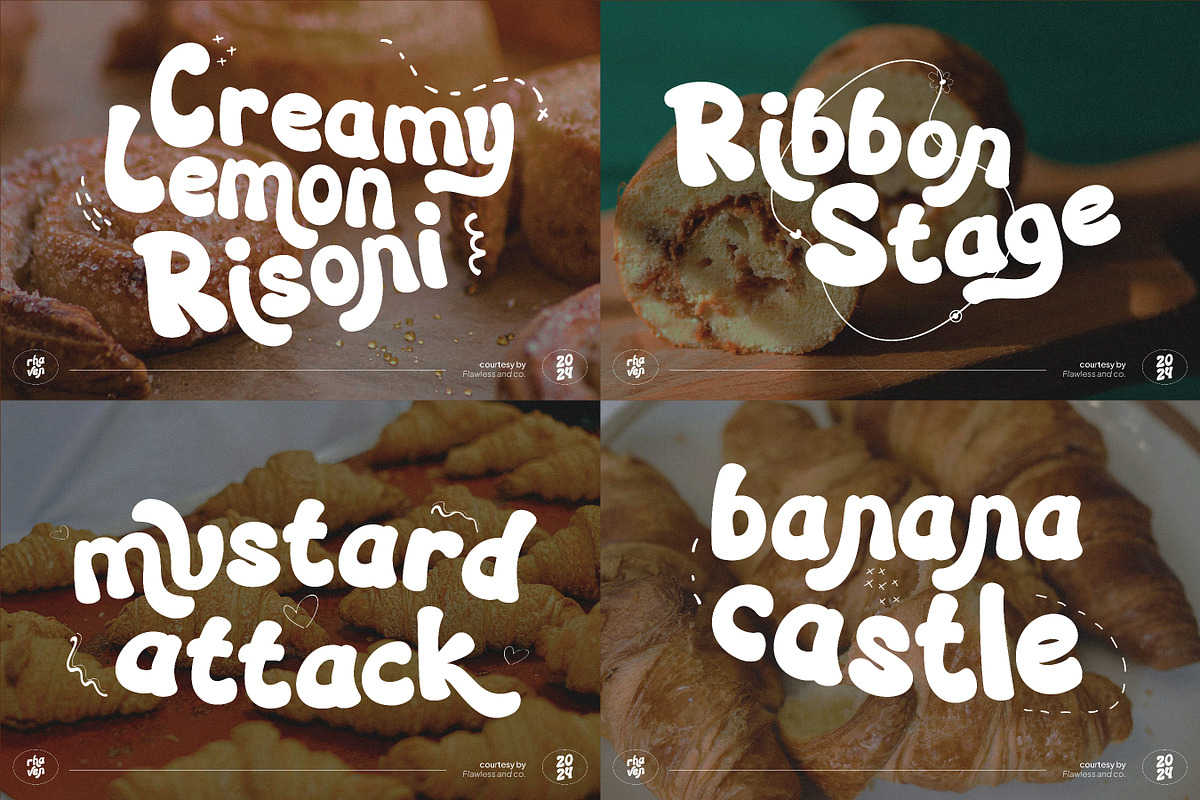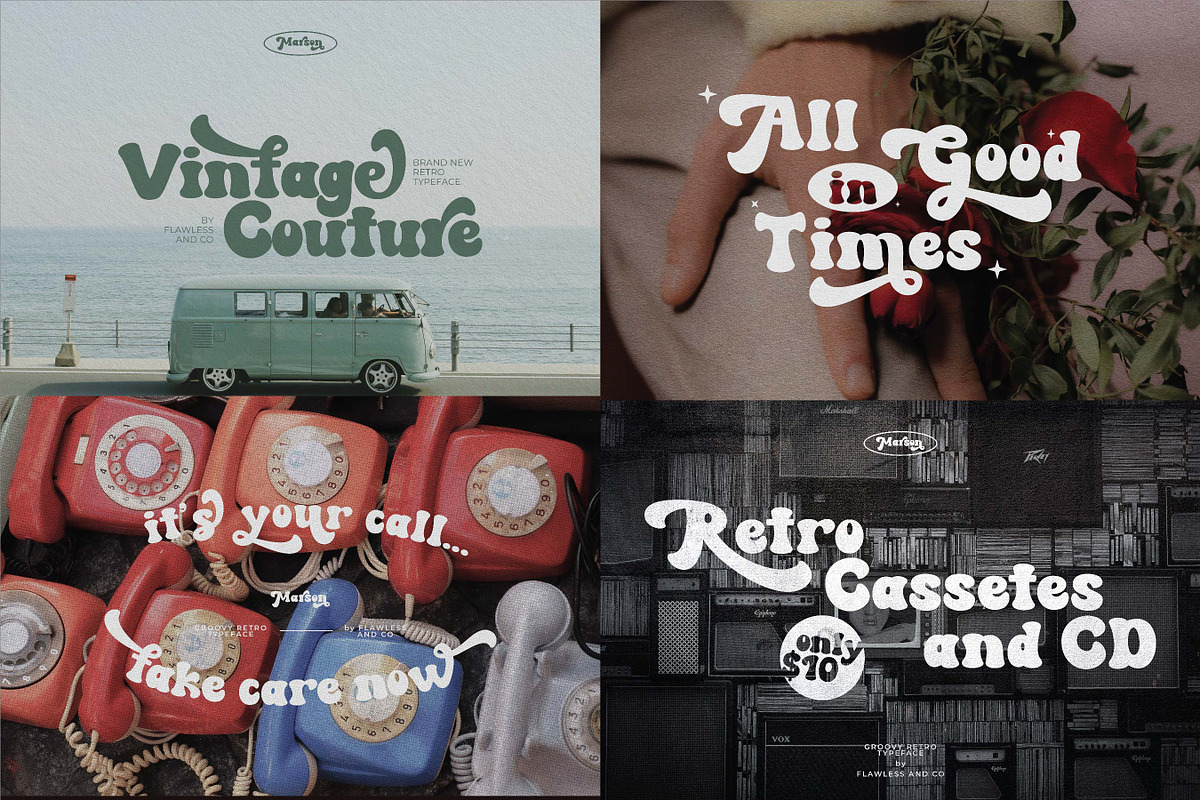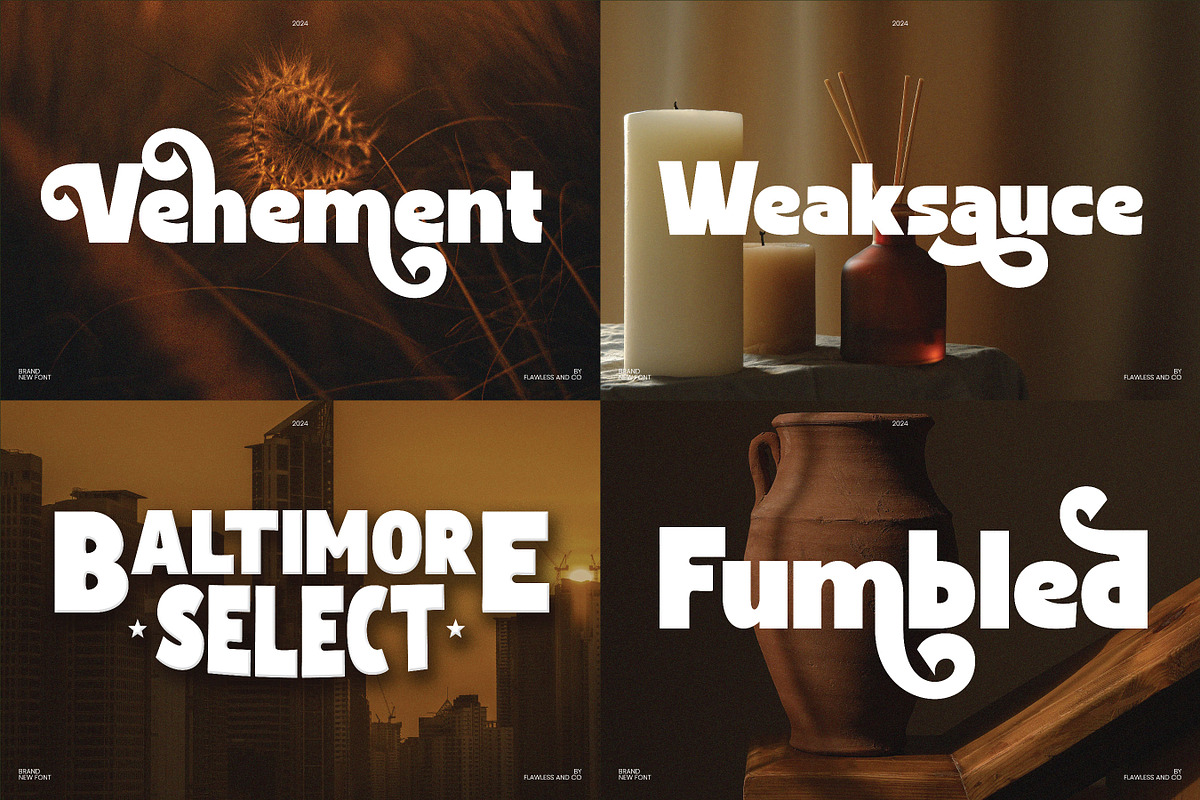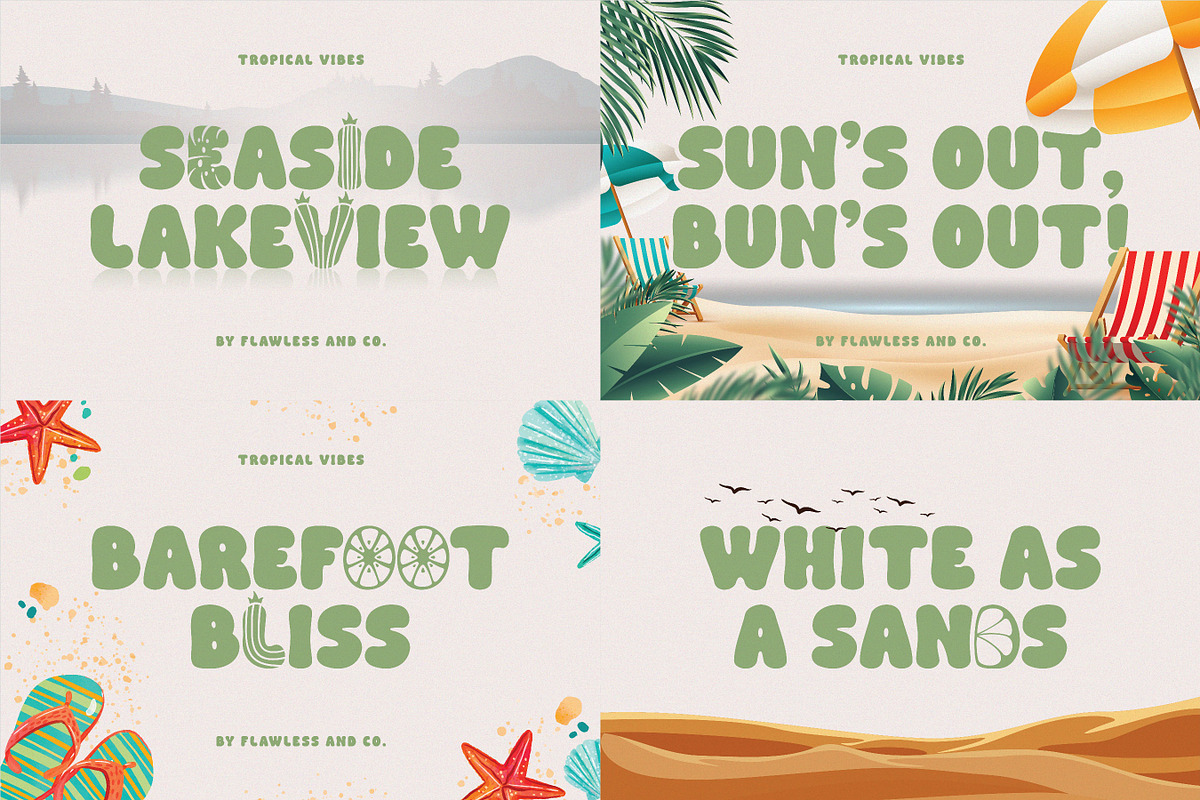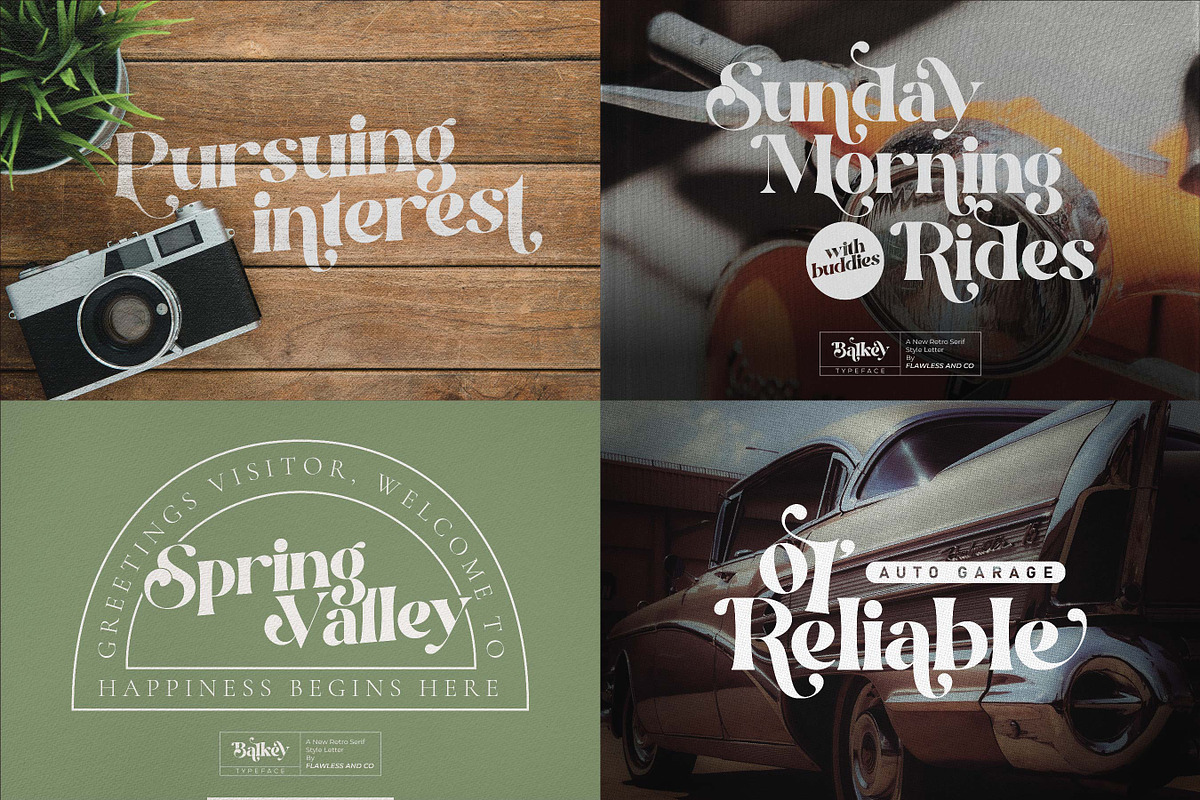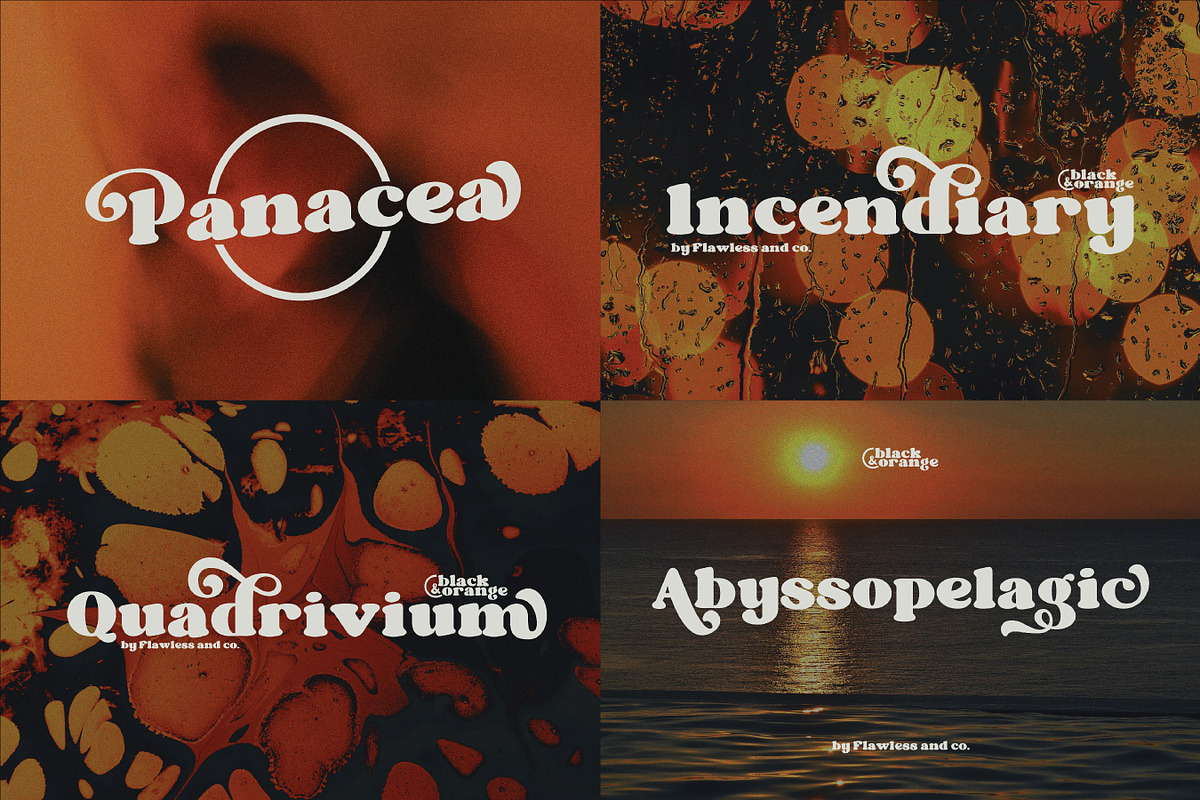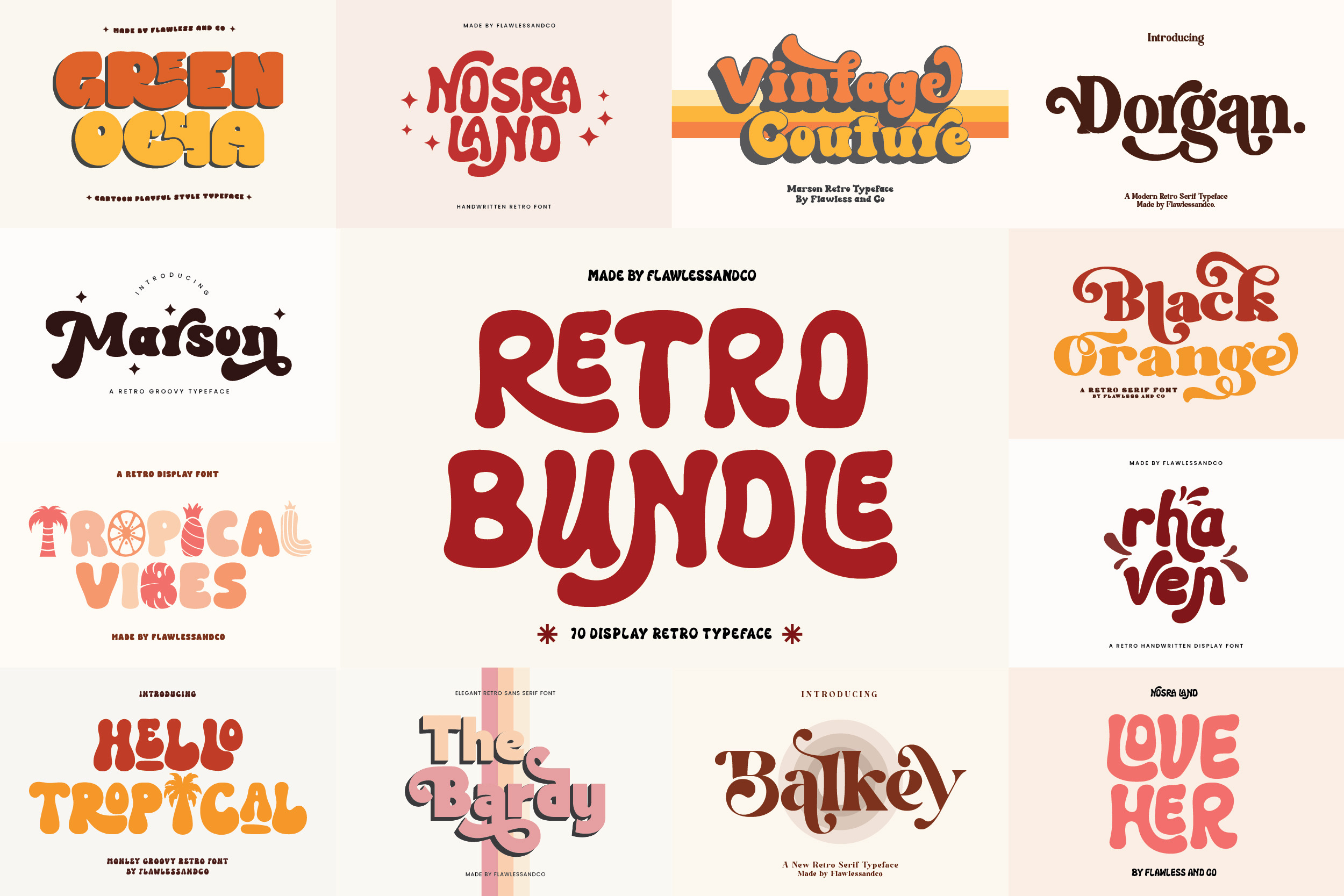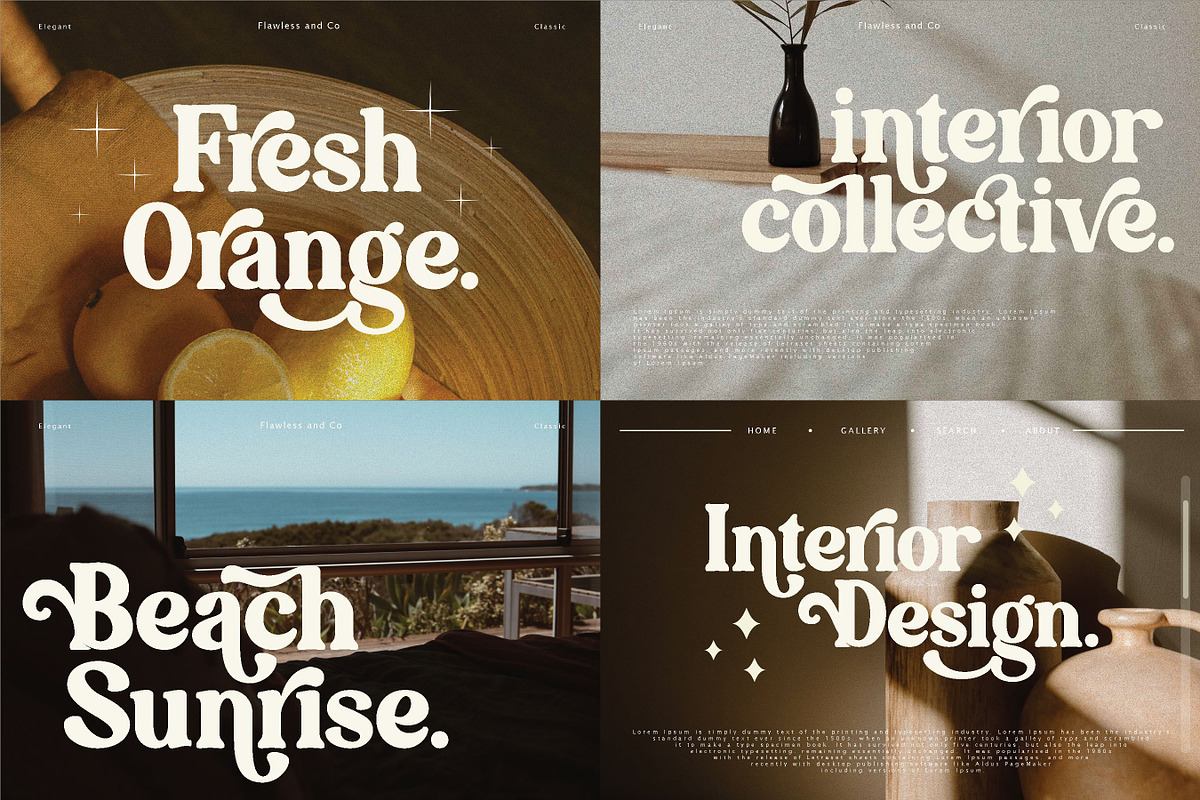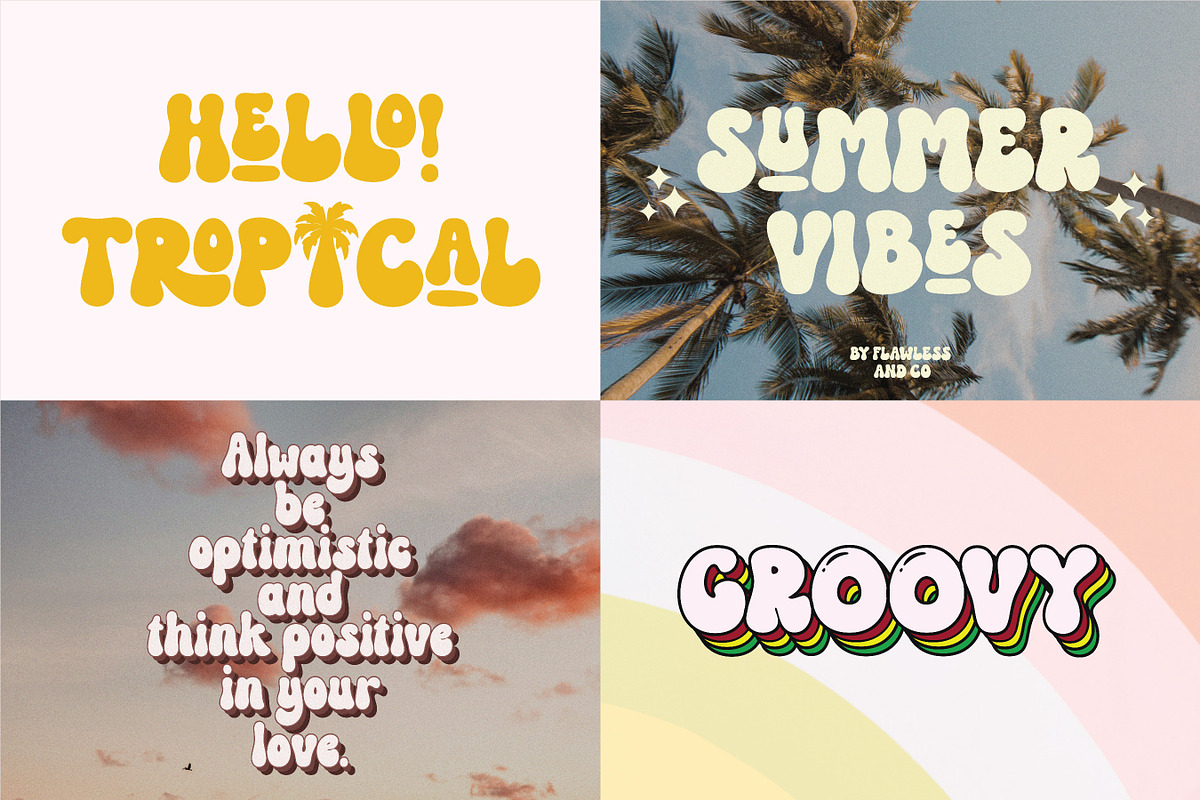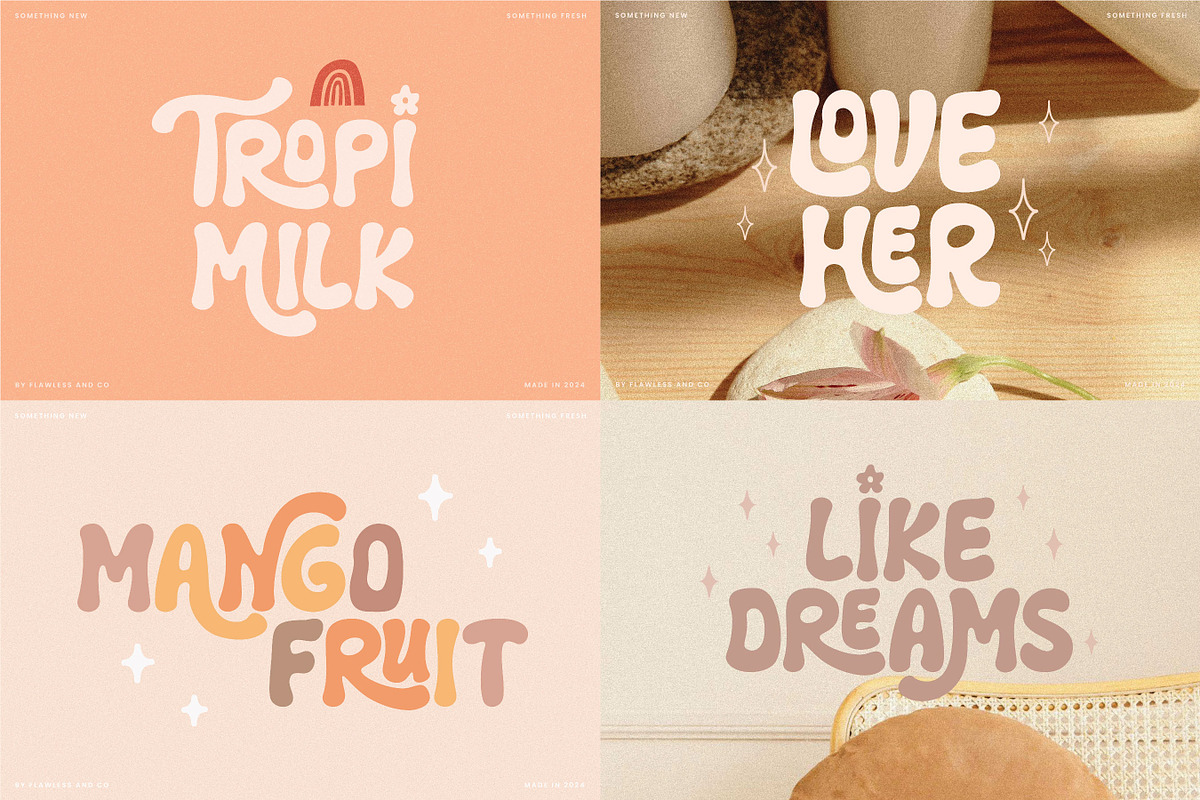
Retro Font Bundle
Retro Font Bundle with 10 fonts included that perfect for your groovy-themed projects such as poster design, branding materials, t-shirts, business cards, logos, photography, quotes, and more.
There are several font styles like fun and bold style, retro serif style, and many more. Don't forget to try out some alternate characters for another visual result!
This bundle are includes :
- Balkey
- Bardy
- Black Orange
- Dorgan
- Green Ocha
- Marson (Vintage couture on preview is the part of this font)
- Monley (Hello Tropical on preview is the part of this font)
- Nosra Land (Love Her on preview is the part of this font)
- Rhaven
- Tropical Vibes